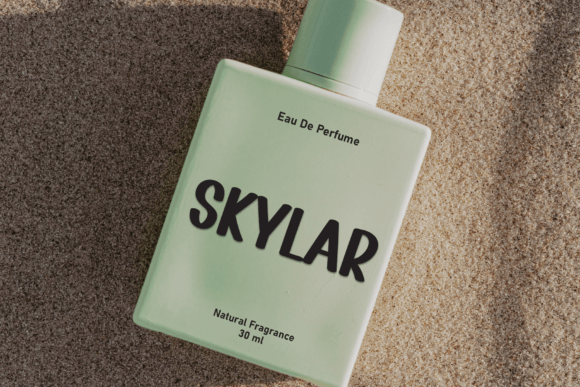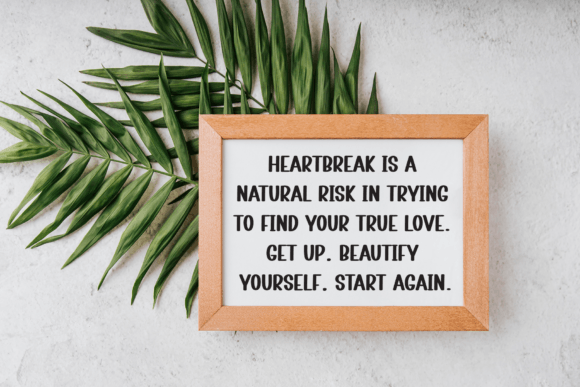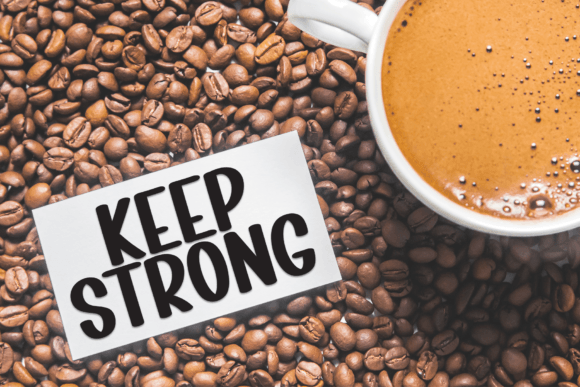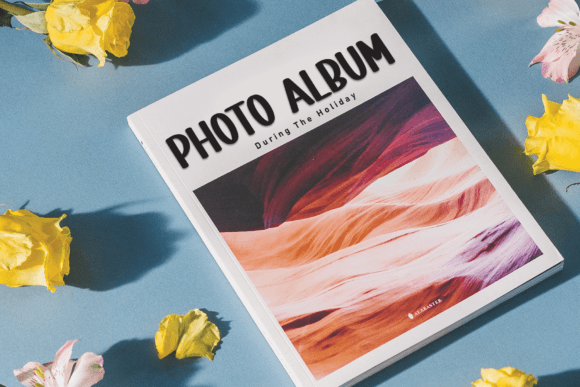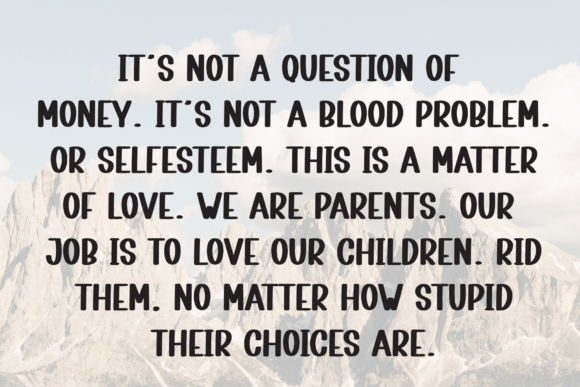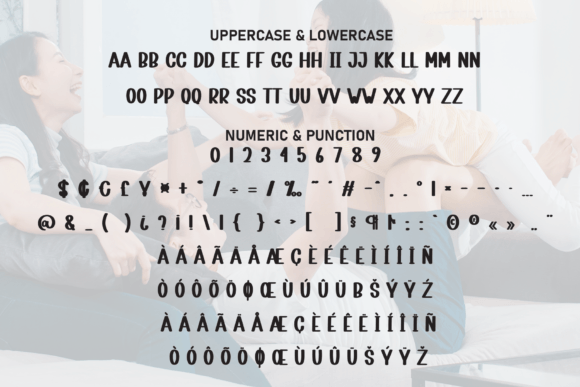
Introducing Happy Family Font: The Ultimate Choice for Joyful Designs
Are you tired of using the same old fonts for your designs? Do you want to add a touch of happiness and playfulness to your projects? Look no further than the Happy Family font! This bold and cheerful typeface is perfect for making any design feel lively and welcoming. In this article, we’ll explore the features and benefits of Happy Family font, and why it’s the ideal choice for designers and crafters looking to add a dash of joy to their work.
The Characteristics of Happy Family Font
Happy Family font is a bold and playful typeface that stands out with its strong, cheerful letters. The font’s unique design makes it perfect for adding a joyful touch to any design, making it feel lively and welcoming. The letters are carefully crafted to convey a sense of happiness and friendliness, making it ideal for projects that require a playful and approachable tone.
Happy Family font is versatile and can be used for a wide range of design projects. Whether you’re working on a poster, headline, or any other project that needs a dash of happiness, this font is the perfect choice. Its bold and playful design makes it perfect for:
- Posters: Add a joyful touch to your posters with Happy Family font. Its bold design ensures that your message will stand out and grab attention.
- Headlines: Make your headlines pop with Happy Family font. Its cheerful design adds a playful touch to any headline, making it perfect for blog posts, articles, and more.
- Branding: Use Happy Family font to add a touch of personality to your brand. Its friendly design makes it perfect for brands that want to convey a sense of approachability and friendliness.
- Crafting: Happy Family font is also perfect for crafters who want to add a personal touch to their projects. Use it to create handmade cards, gift tags, and other craft projects that require a playful and cheerful touch.
Why Designers and Crafters Love Happy Family Font
Designers and crafters love Happy Family font for its unique and playful design. Here are just a few reasons why:
- Easy to Read: Happy Family font is easy to read, even in large and small sizes. Its clear design ensures that your message will be understood by everyone.
- Versatile: Happy Family font is versatile and can be used for a wide range of design projects. Its bold and playful design makes it perfect for posters, headlines, and more.
- Unique: Happy Family font is a unique and original typeface that will make your designs stand out. Its cheerful design adds a playful touch to any project.
How to Use Happy Family Font in Your Designs
Using Happy Family font in your designs is easy. Here are a few tips to get you started:
- Pair it with Other Fonts: Happy Family font pairs well with other fonts. Try pairing it with a sans-serif font for a modern look or a serif font for a more traditional look.
- Experiment with Colors: Happy Family font looks great in a variety of colors. Try experimenting with different colors to find the perfect one for your design.
- Use it for Headlines: Happy Family font is perfect for headlines. Use it to add a playful touch to your headlines and make them stand out.
In conclusion, Happy Family font is a bold and playful typeface that’s perfect for adding a joyful touch to any design. Its unique design makes it perfect for posters, headlines, and any project that needs a dash of happiness. Designers and crafters love Happy Family font for its ease of use, versatility, and unique design. Whether you’re working on a professional design project or a personal crafting project, Happy Family font is the perfect choice. So why not give it a try and add a touch of happiness to your designs?